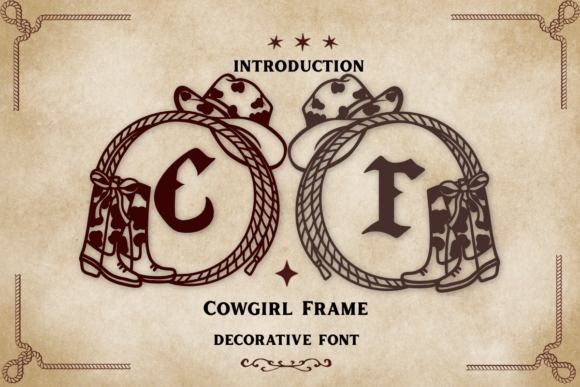
The Perfect Rodeo of Typography: Unleashing the Charm of Cowgirl Frame Font
Have you ever been browsing through a dusty old antique store, and stumbled upon a vintage rodeo poster that sparks your imagination? That’s exactly what happened to me, and it led me to discover the captivating Cowgirl Frame Font. This unique western-style decorative font is a masterful blend of vintage rodeo aesthetics and gothic charm, making it the perfect addition to any designer’s toolkit.
Cowgirl Frame Font is a game-changer for designers looking to add a touch of rugged elegance to their projects. With its bold, blackletter-inspired letterforms and charming cowboy motifs, this font brings a perfect mix of grit and personality to your designs. Whether you’re creating standout titles, themed party invites, or western merchandise, Cowgirl Frame Font is the perfect choice to elevate your designs and leave a lasting impression.
Cowgirl Frame Font Key Features
- Font Style: Western, Casual, and Elegant – This font combines the classic feel of the Wild West with a touch of sophistication.
- Unique Characteristics: Hand-Drawn and Distressed – The font’s hand-drawn and distressed elements give it a unique, eye-catching look.
Cowgirl Frame Font Review
At first glance, I was immediately drawn to the ✨ unique, hand-drawn aesthetic of the Cowgirl Frame Font. The intricate details and subtle textures evoke a sense of western charm that’s sure to add a touch of personality to any design project.
The font also excels at conveying a sense of nostalgia, with its distressed and weathered look giving off a “vintage” vibe that’s perfect for retro-themed designs or projects that require a laid-back feel.
Overall, I think the Cowgirl Frame Font is a great addition to any designer’s toolkit, especially for projects that require a unique, rustic look. While it may have some limitations, its charm and character make it a great choice for the right design project.